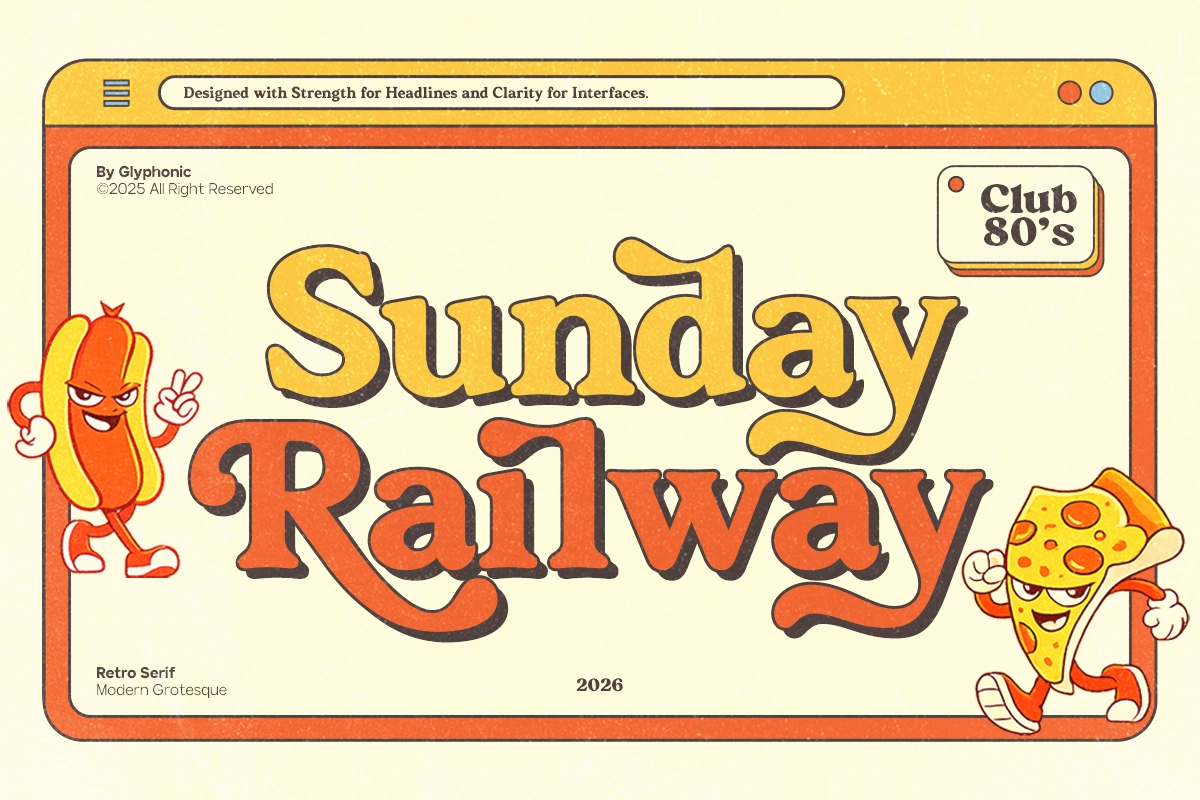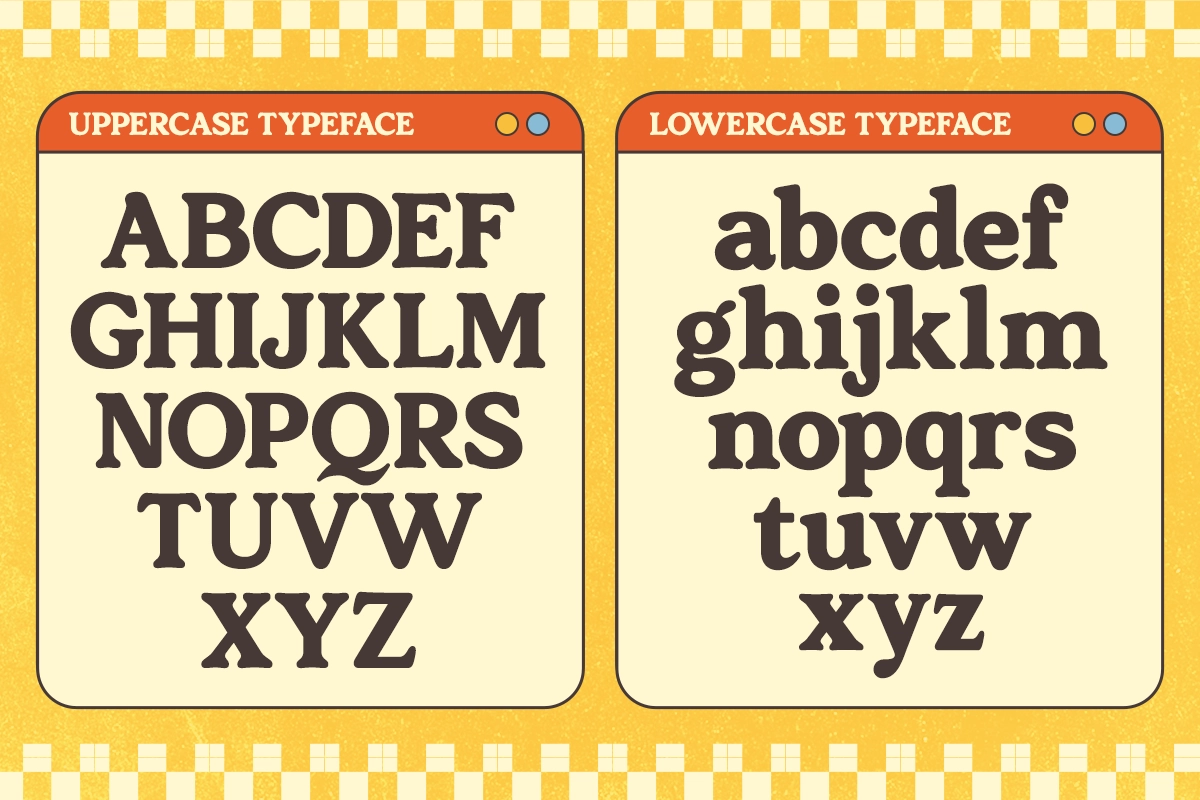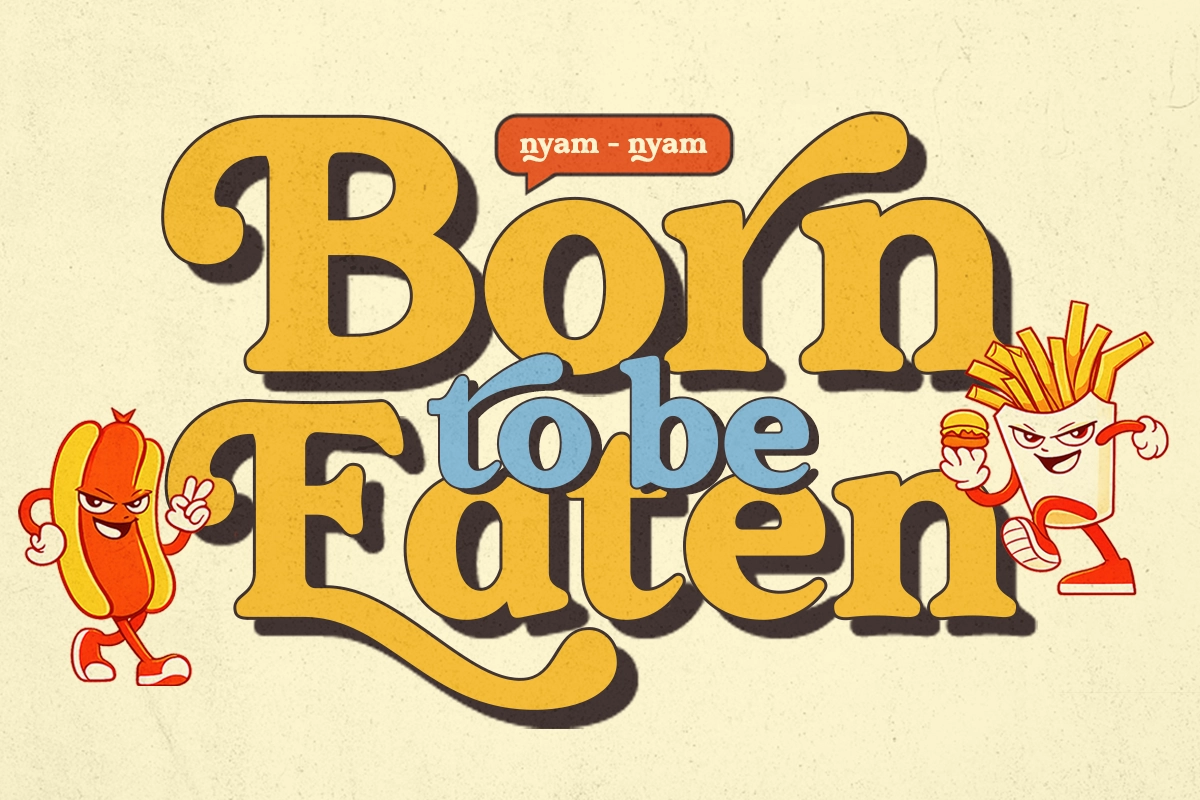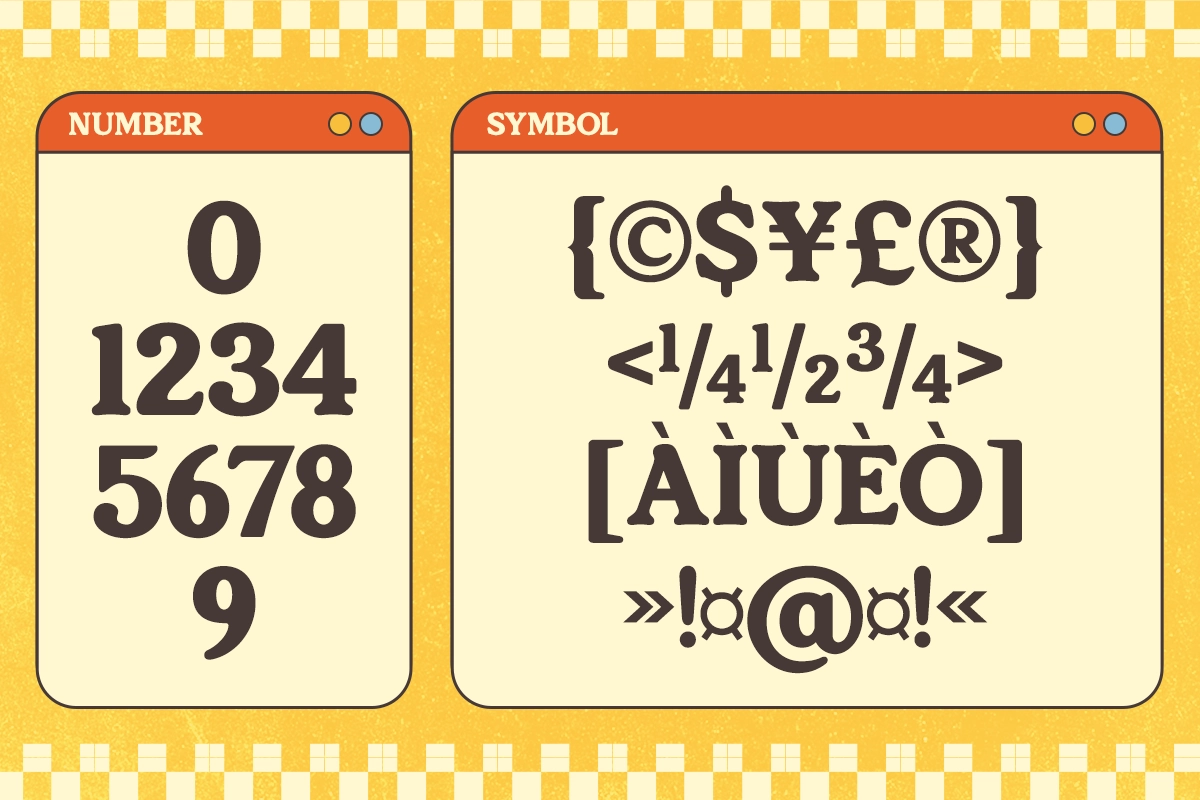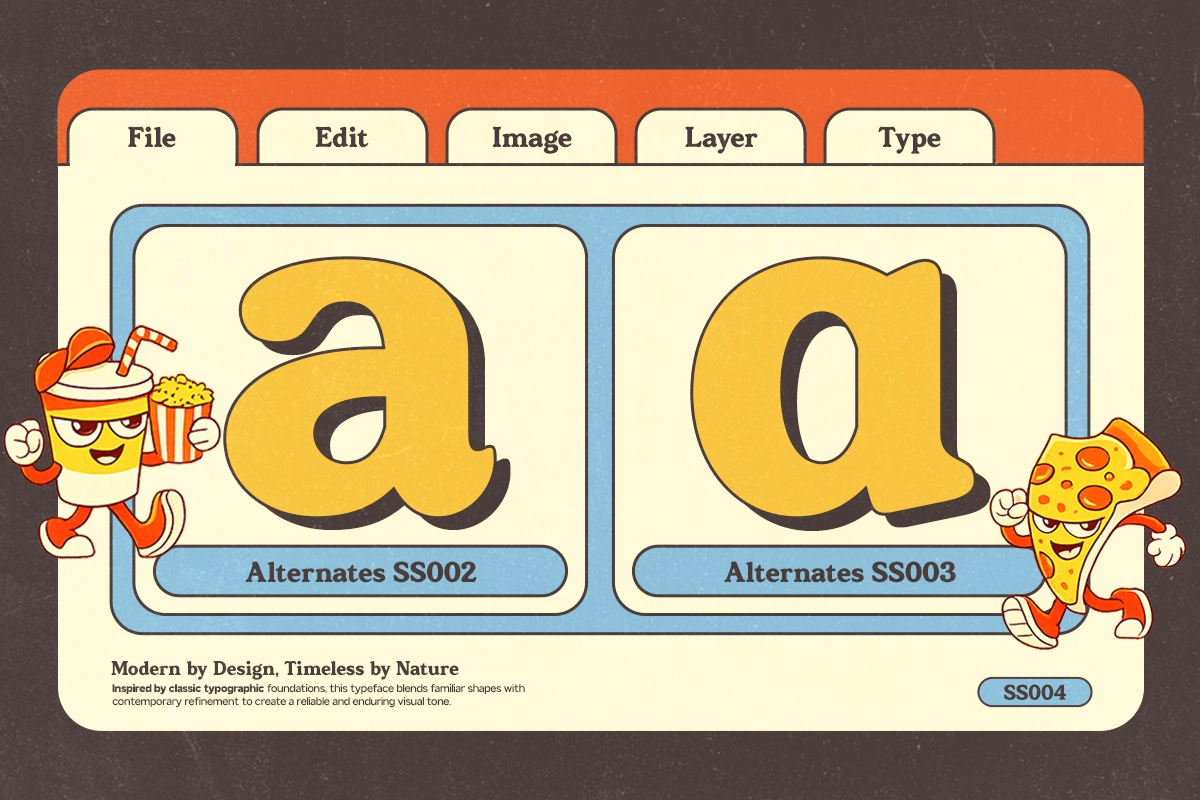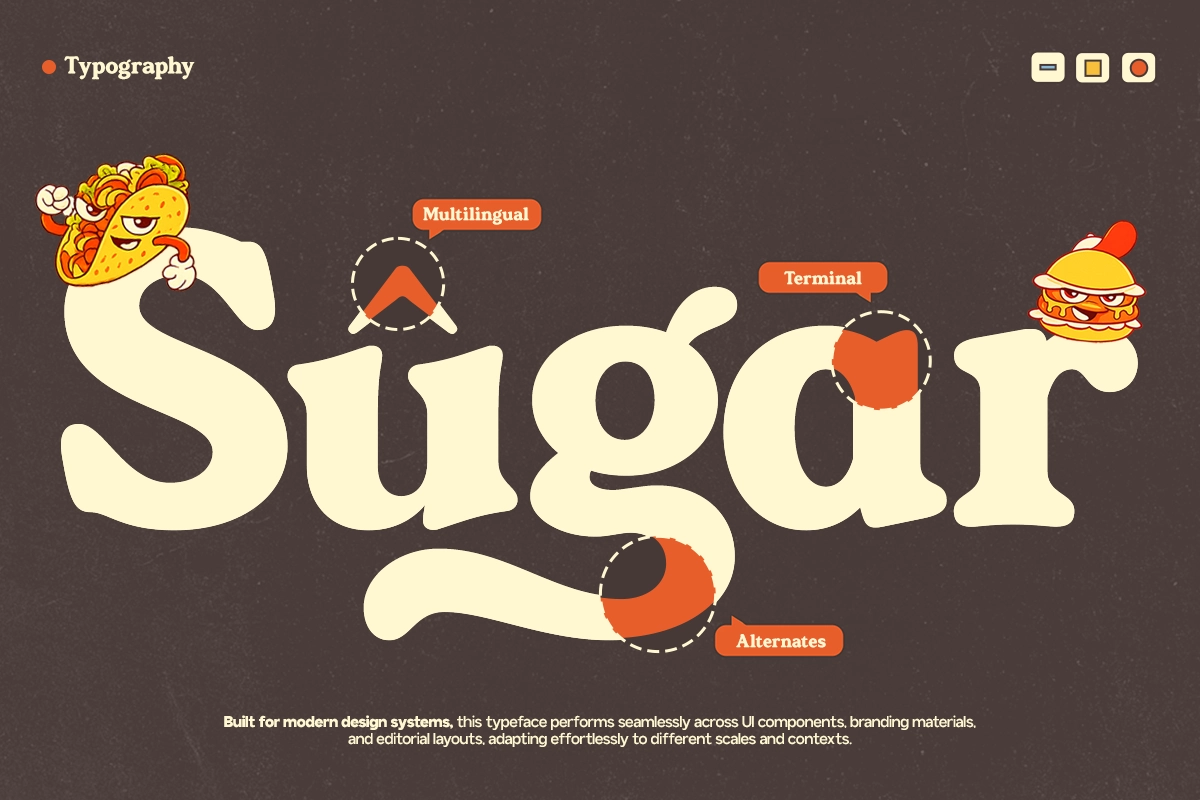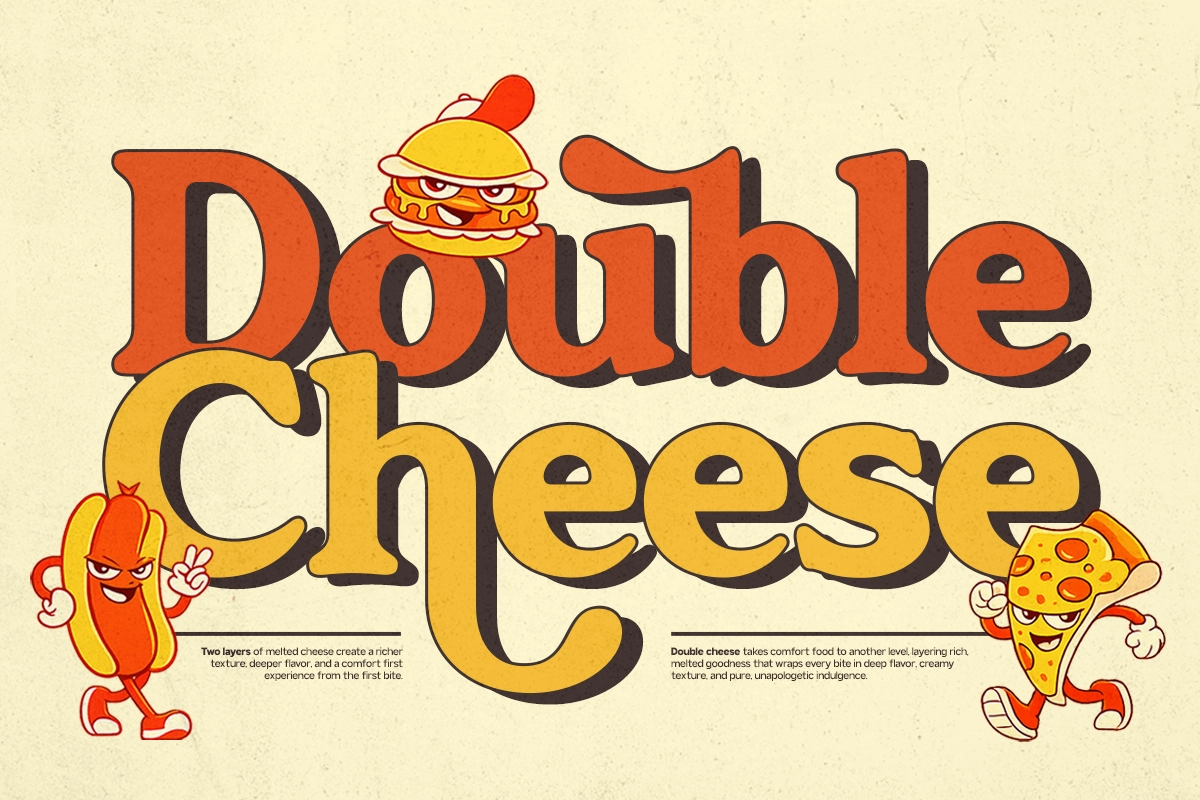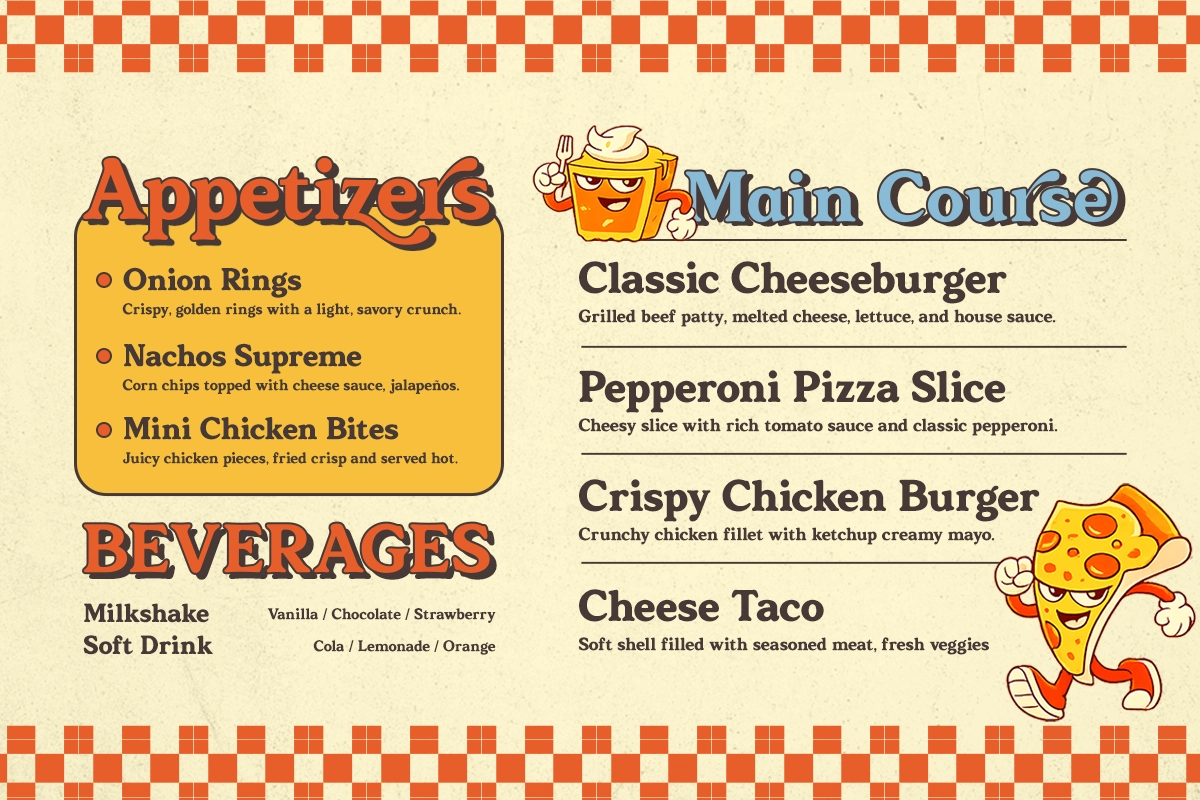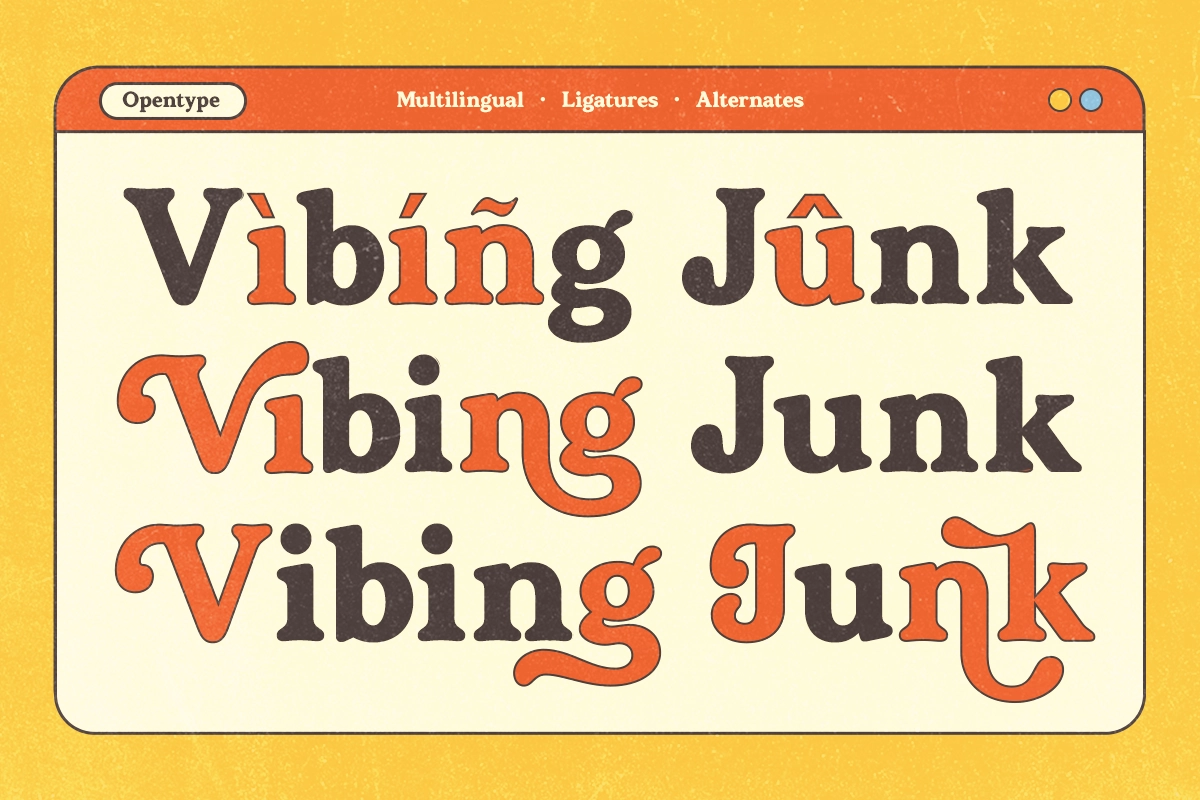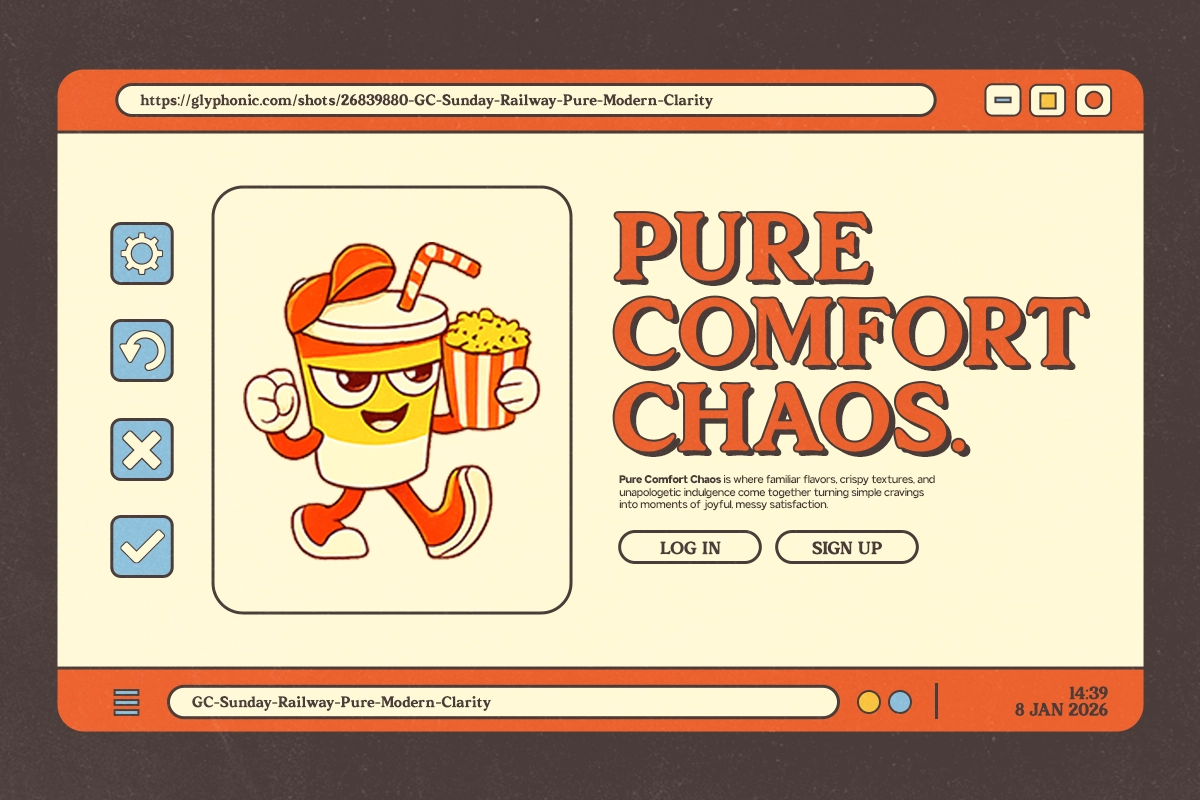
GC Sunday Railway - Groovy 70s Serif Font
GC Sunday Railway – Groovy 70s Serif Font is a bold retro typeface inspired by classic railway signage, vintage travel graphics, and iconic 1970s editorial design. Combining nostalgic character with a clean, structured form, this serif font delivers a confident and stylish presence that feels both timeless and expressive.
Perfect for vintage logos, café branding, packaging, posters, magazine layouts, and retro-inspired visual identities, GC Sunday Railway stands out with its strong serif details and balanced proportions. Whether used for statement headlines or standout branding elements, this groovy 70s serif font brings warmth, personality, and a distinctive old-school charm to any design project.
• Numbers & Punctuation
• Classy Retro Serif Construction
• Multilingual Support (170+ Languages)